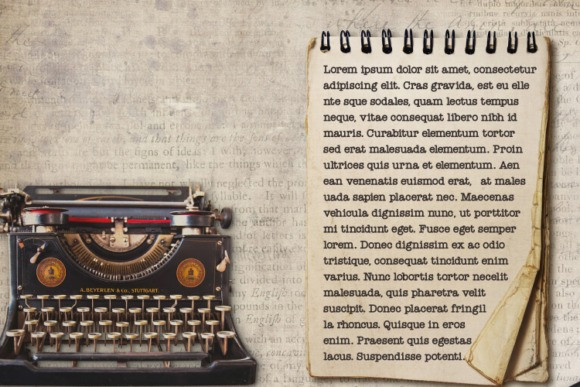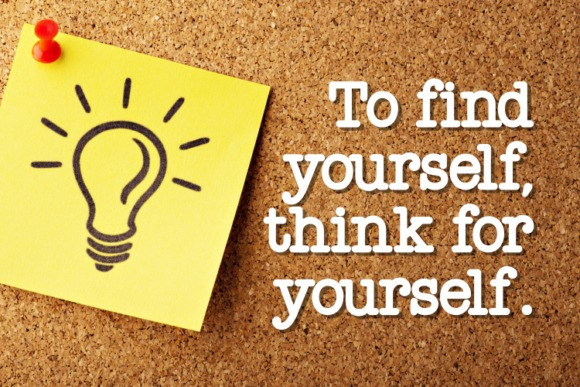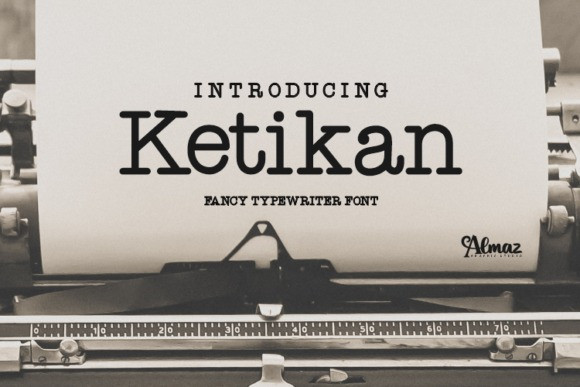
Ketikan Font
Ketikan Font is a creative and unique alternative solid typewriter font. The perfect font when looking for that authentic and original typewriter feel to your designs. This beautiful design combines the simplicity of typewriting stains.